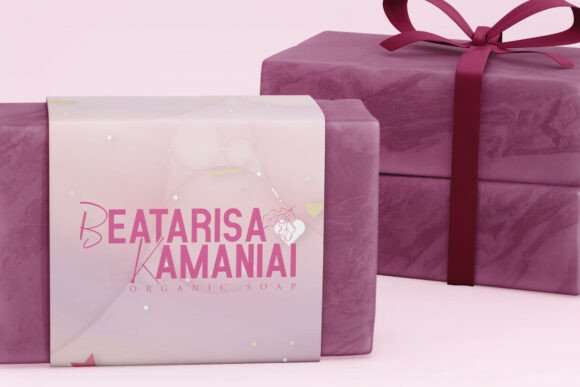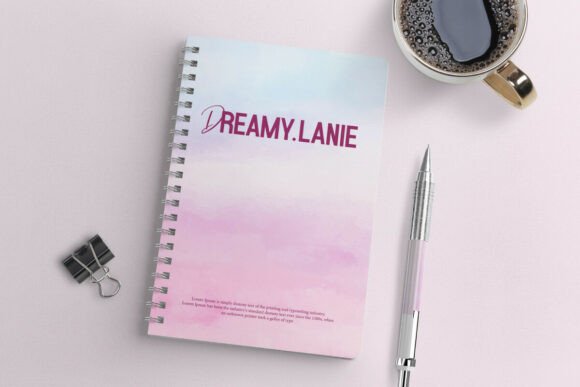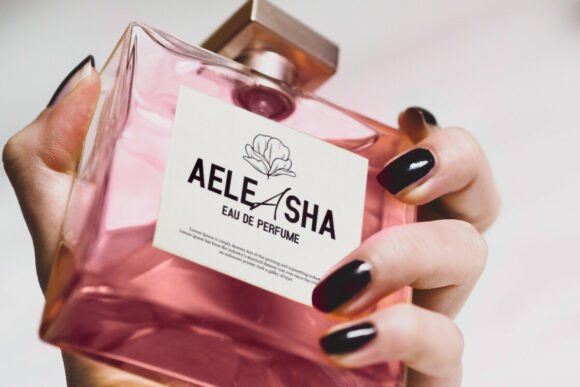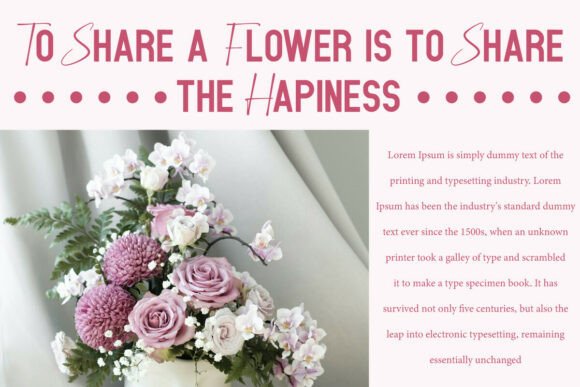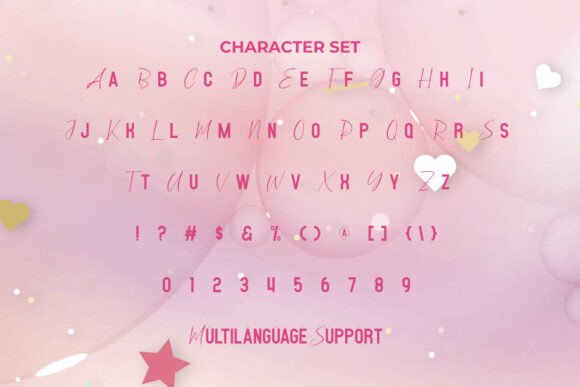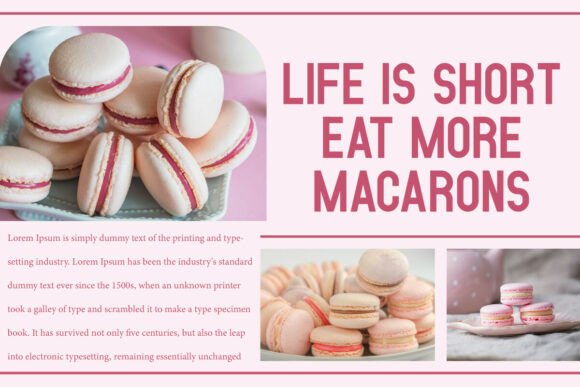
Discover the Dreamy Lanie Font: A Vibrant and Feminine Display Typeface
Have you ever been in the middle of a design project, and suddenly, you’re stuck on finding the perfect font? I recall a recent experience where I was working on a branding project for a cosmetics client, and I just couldn’t find a font that captured the right balance of femininity, energy, and glamour. That’s when I stumbled upon the Dreamy Lanie font, and it completely transformed my design. In this article, we’ll dive into the world of Dreamy Lanie, exploring its unique features, and how you can make the most of this stunning display typeface in your designs.
A First Impression: What Makes Dreamy Lanie Stand Out
The Dreamy Lanie font is a captivating display typeface that commands attention with its ultra-bold, slightly condensed capital letters paired with an unexpected, elegant script alternative for initial letters. This beautiful contrast provides instant visual interest, making it perfect for projects that demand a girly, energetic, and glamorous feel.
Some of the key features that make Dreamy Lanie stand out include:
- Ultra-bold and slightly condensed capital letters for maximum impact
- Elegant script alternative for initial letters, adding a touch of whimsy
- Thick, impactful lines for high visibility
- Whimsical swash alternates for a personal, charming touch
What I Love About Dreamy Lanie ✨
Here are some aspects of the Dreamy Lanie font that I absolutely adore:
- ✨ Instant visual interest: The combination of bold capital letters and elegant script alternates creates a stunning contrast that grabs attention.
- ✅ High versatility: Dreamy Lanie is perfect for a wide range of projects, from bold magazine headlines to social media graphics, product packaging, and playful branding.
- 💃 Feminine and glamorous: This font is ideal for designs that require a touch of femininity, energy, and glamour.
While Dreamy Lanie is an amazing font, there are a few minor quirks to be aware of:
- ⚠️ Legibility at small sizes: Due to its ultra-bold nature, Dreamy Lanie may not be the best choice for body text or small font sizes.
- 🤔 Overuse of swashes: While the whimsical swash alternates are charming, overusing them can make the text look cluttered.
The Designer Inspiration Behind Dreamy Lanie
The Dreamy Lanie font was inspired by the designer’s passion for feminine, glamorous typography. With a background in fashion design, the creator of Dreamy Lanie sought to craft a font that would capture the essence of high-end fashion and beauty. Through a combination of bold, condensed capital letters and elegant script alternates, Dreamy Lanie was born – a font that’s both fun and fiercely fashionable.
Q: What type of projects is Dreamy Lanie best suited for?
A: Dreamy Lanie is perfect for projects that require a bold, feminine, and glamorous feel, such as magazine headlines, social media graphics, product packaging, and playful branding.
Q: Can I use Dreamy Lanie for body text?
A: While Dreamy Lanie is an amazing display font, it may not be the best choice for body text due to its ultra-bold nature. It’s recommended to use it for headlines, titles, or short paragraphs.
Q: Is Dreamy Lanie a script font?
A: Dreamy Lanie is a display typeface that features both ultra-bold capital letters and elegant script alternative for initial letters. While it’s not a traditional script font, it does offer script-like alternates for added visual interest.